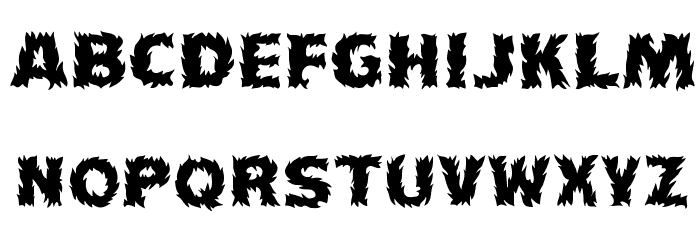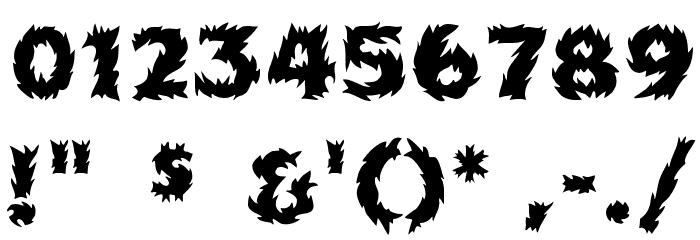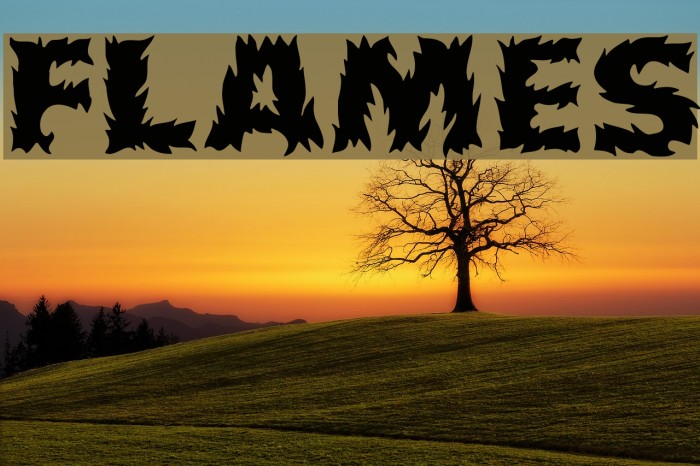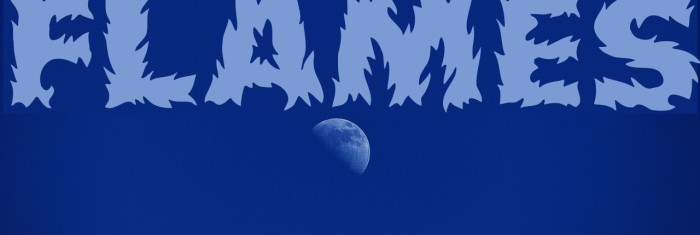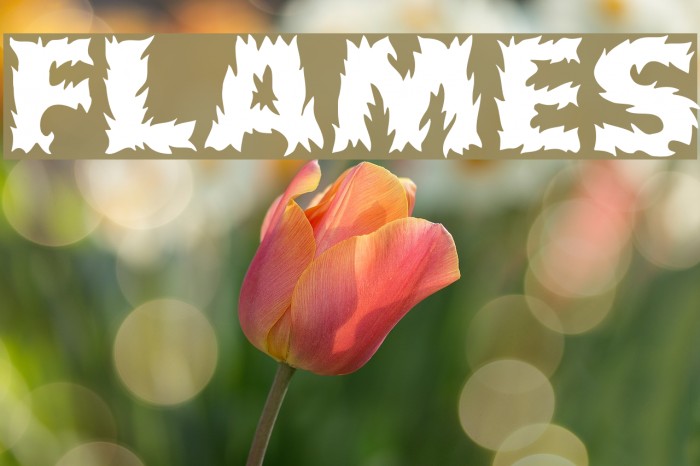
Flames Font
This font features a bold and dynamic design with characters that appear to be engulfed in flames. The jagged edges and irregular shapes give it a fiery and energetic appearance, making it stand out with a sense of movement and intensity. Each letter and number is uniquely styled to resemble flickering flames, creating a dramatic and eye-catching effect. The font is highly decorative and is best suited for projects that require a strong visual impact. Its distinctive style makes it ideal for themes related to fire, energy, or excitement.
A bold, flame-inspired decorative font with dynamic, jagged edges.
- Proposed Projects: Ideal for event posters, music album covers, video game titles, or any design needing a fiery, energetic theme.
- Category: Decorative/Display
- Contrast: High